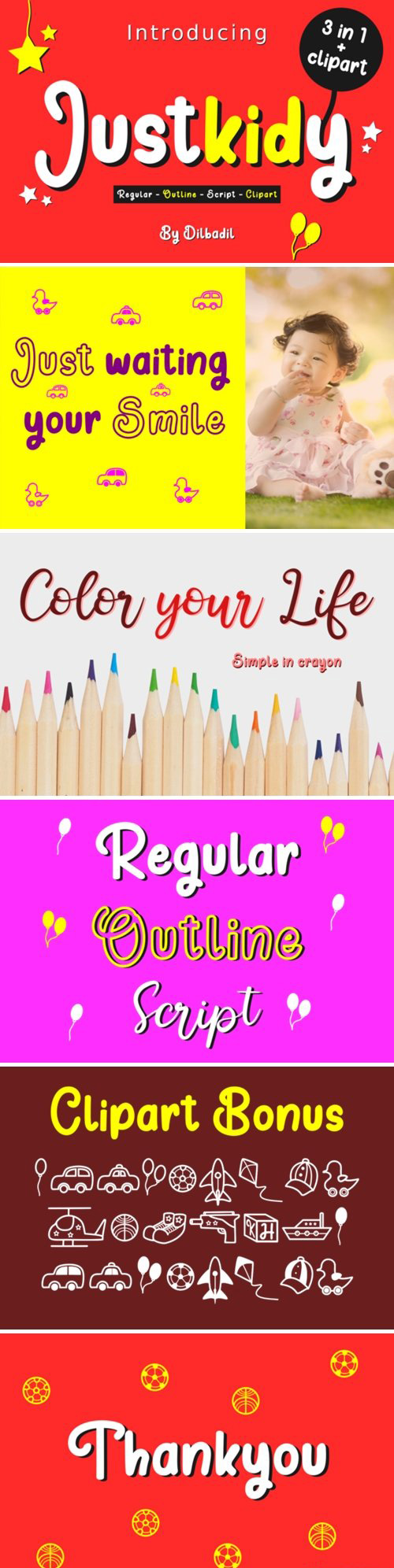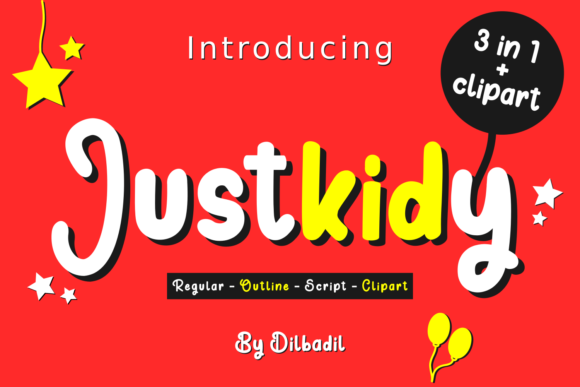
Justkidy is a fun and sweet paint brushed handwritten font. Whether you’re looking for fonts for Instagram or calligraphy scripts for DIY projects, this font will turn any creative idea into a true piece of art!